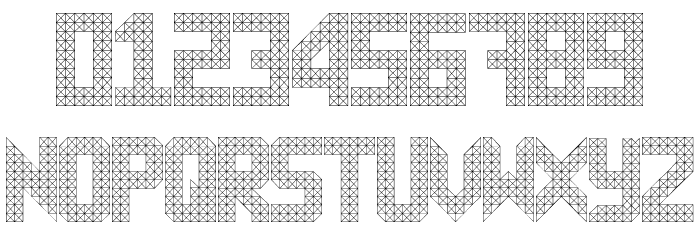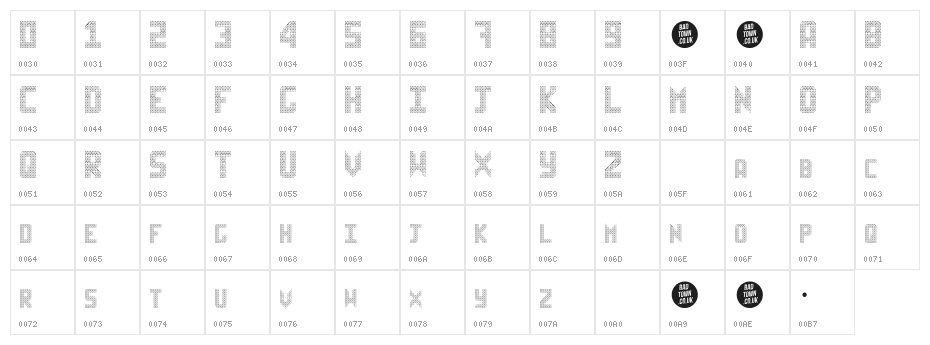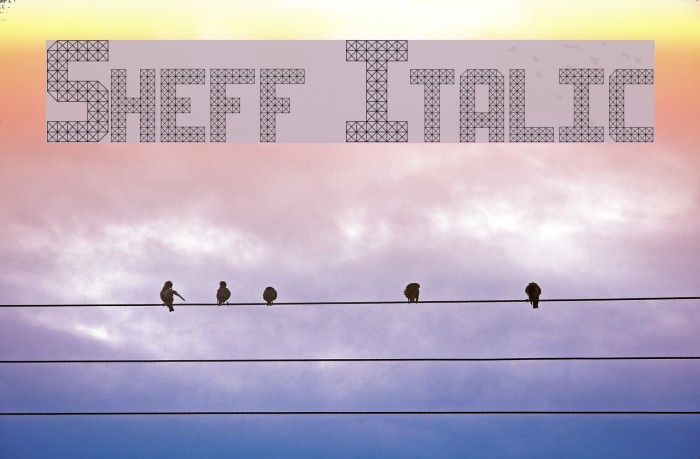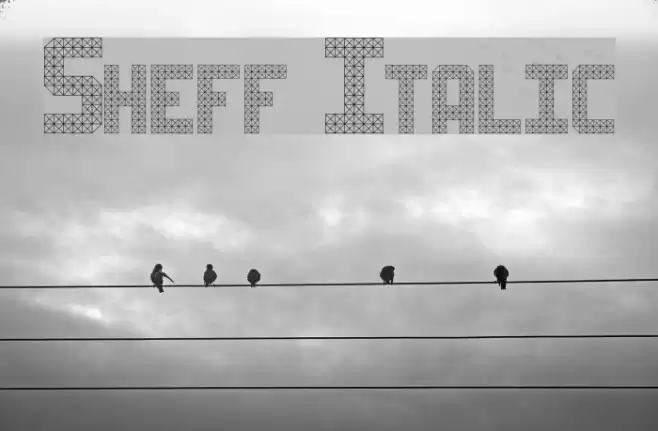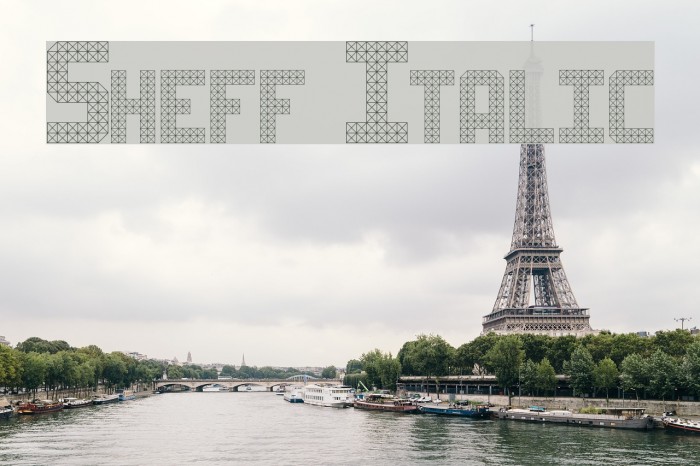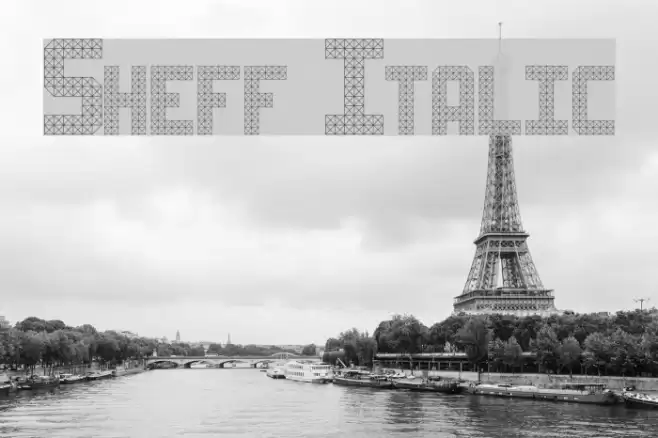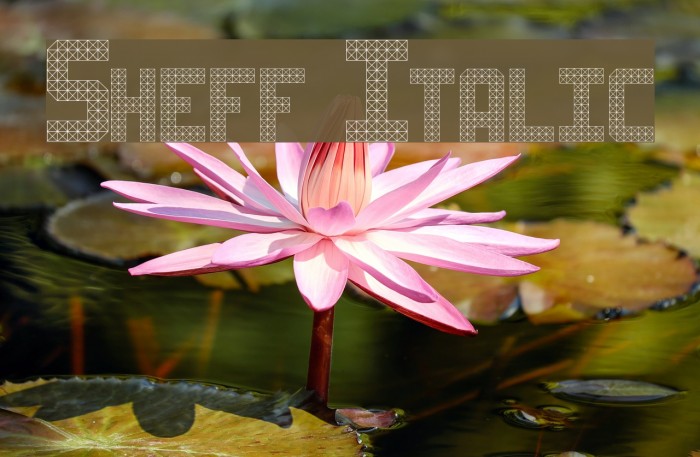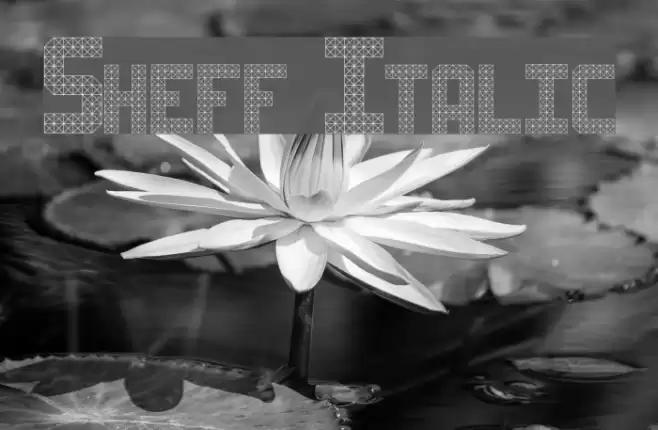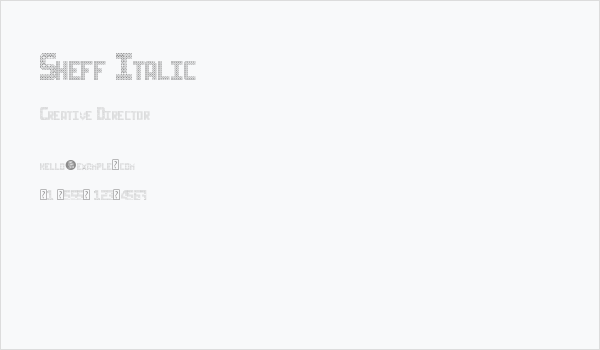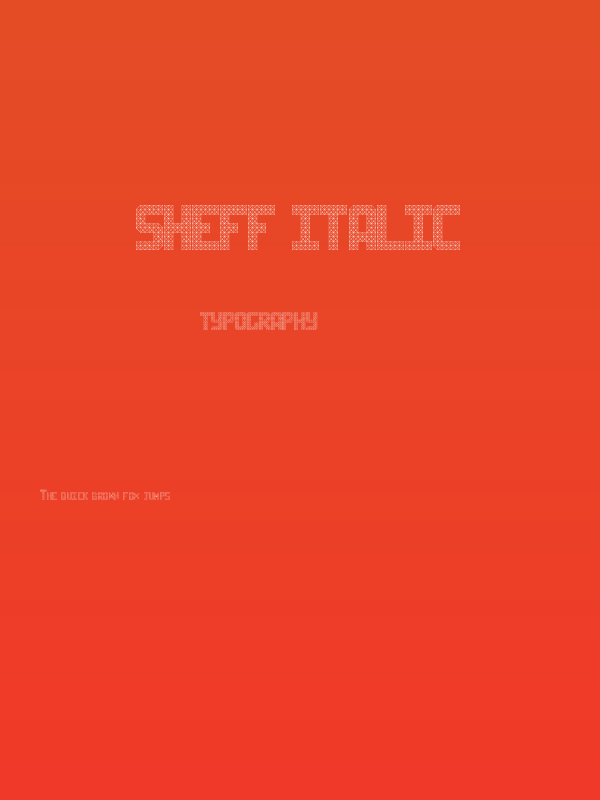
Sheff Italic Font
Sheff Italic Description
This font features a geometric, grid-like pattern that fills each character, creating a unique and intricate design. The letters are bold and angular, with sharp edges and a consistent height across both uppercase and lowercase characters. The use of a triangular mesh within each letterform gives it a modern, digital aesthetic, reminiscent of architectural or technical drawings. The numbers and special characters follow the same design principles, ensuring uniformity throughout the typeface. This font stands out due to its decorative nature, making it suitable for projects that require a strong visual impact.
Proposed ProjectsThis font is perfect for projects such as posters, album covers, branding for tech companies, or any design that requires a futuristic and eye-catching typeface.